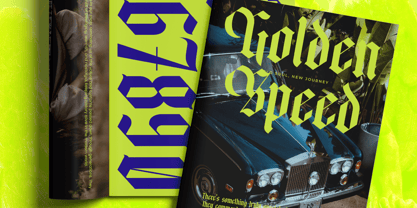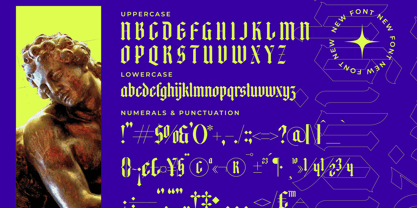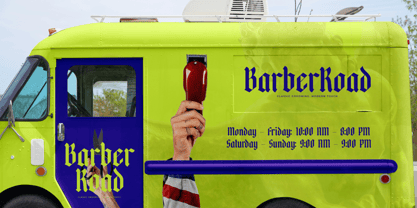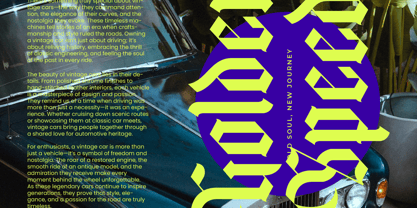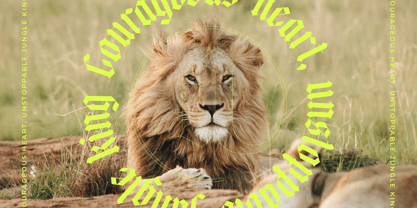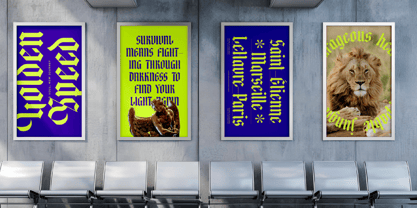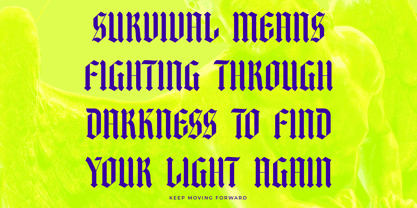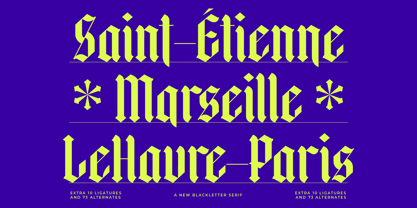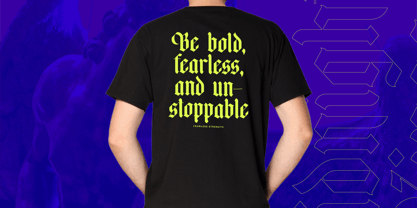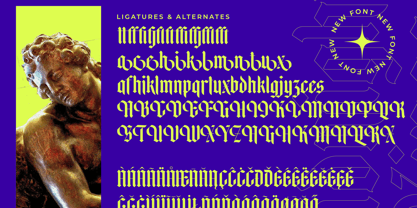
Midnights Kings
The Midnights Kings Font Family was designed by Heru Utama Putra and published by Timelesstype Studio. Midnights Kings contains 2 styles and family package options. More about this family
Midnights Kings - New Blackletter Serif , from Timelesstype, Suitable for any projects such as: logos, branding projects, homeware designs, product packaging, mugs, quotes, posters, shopping bags, t-shirts, book covers, name card, invitation cards, greeting cards, label, photography, watermark, special events, and all your other luxury and beautiful projects that need a Luxury Serif taste.